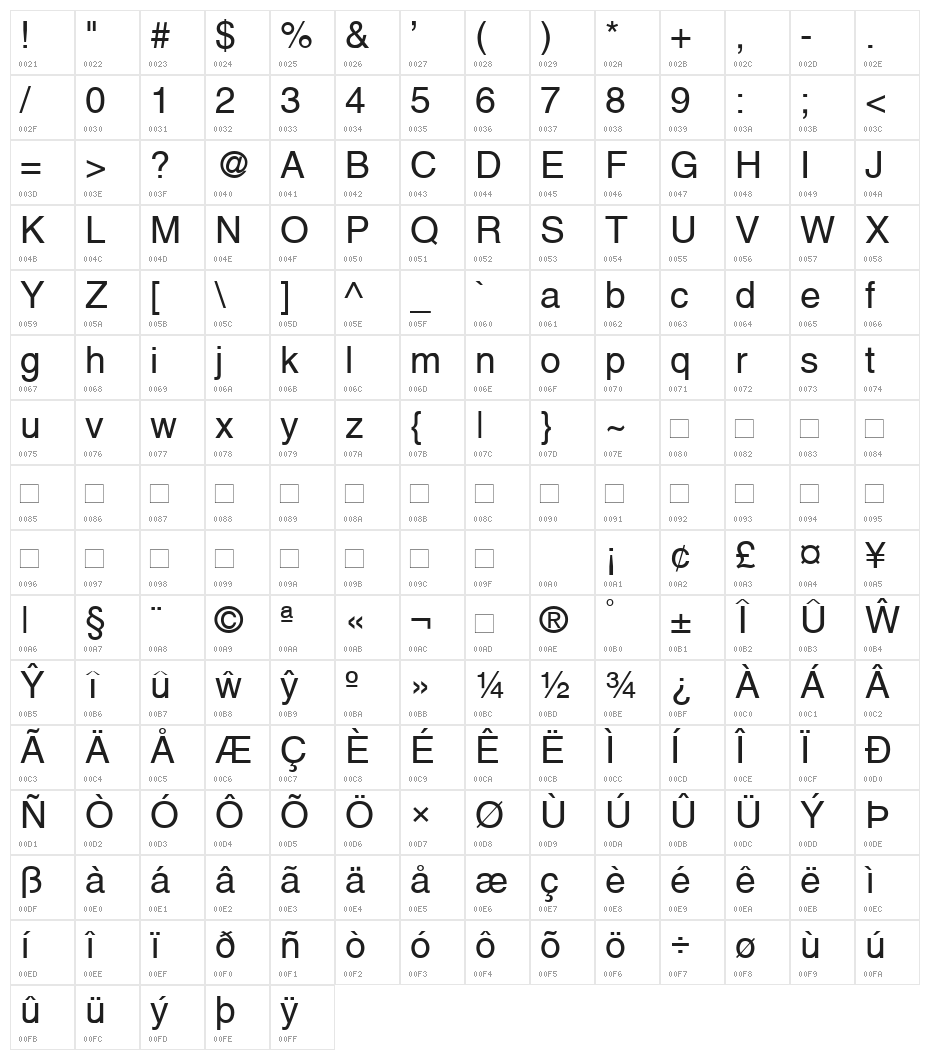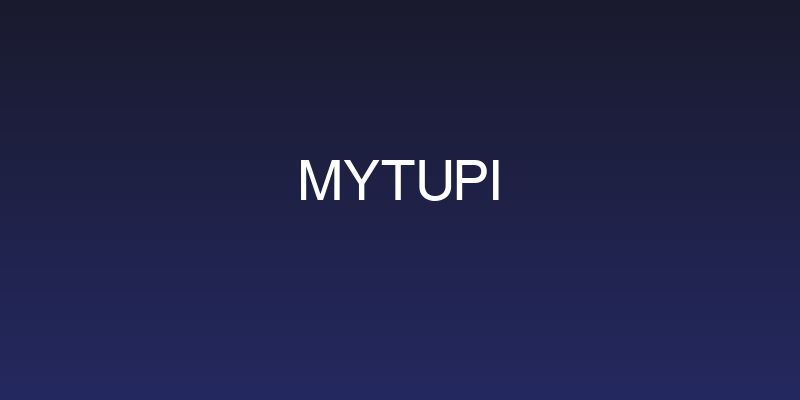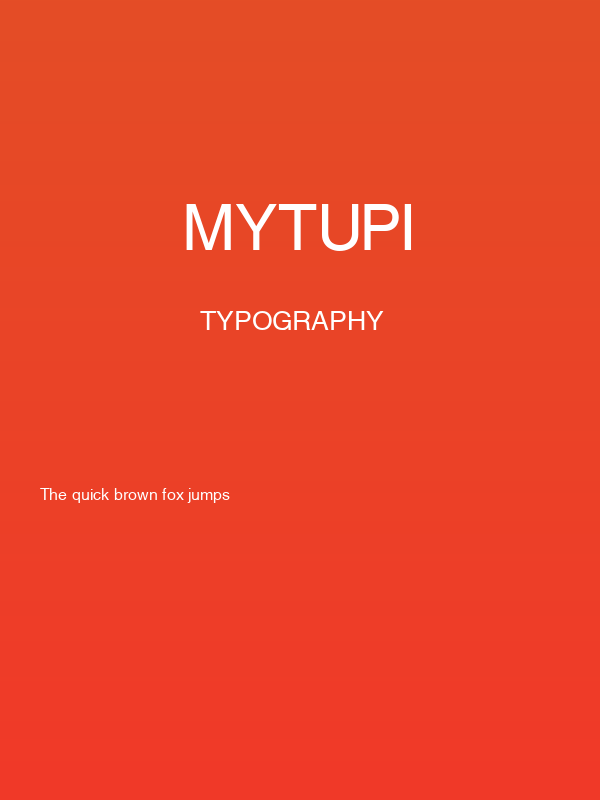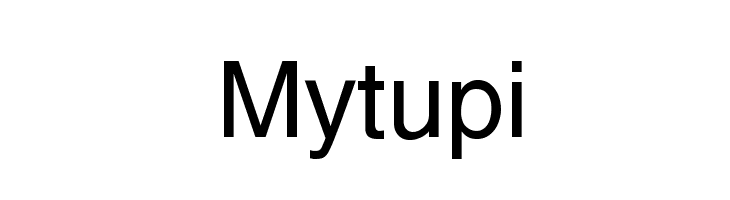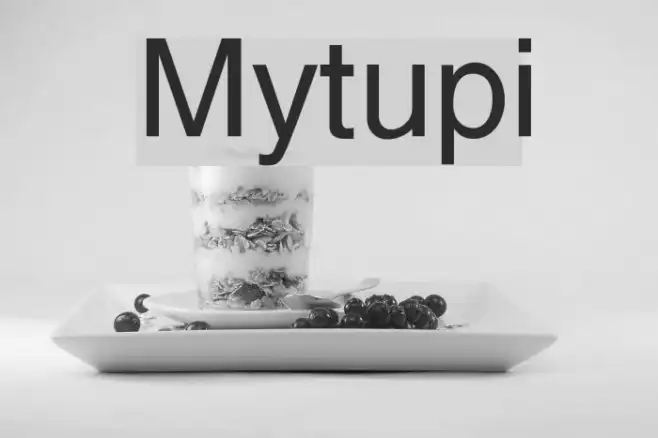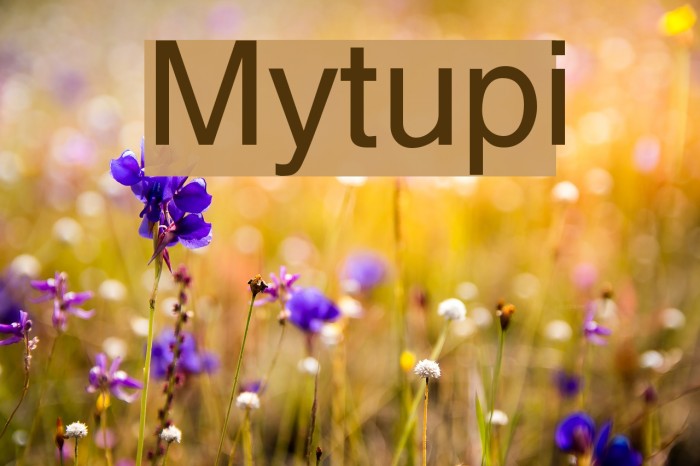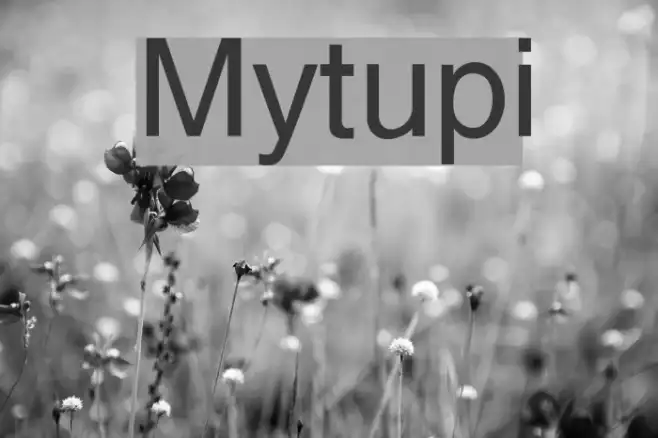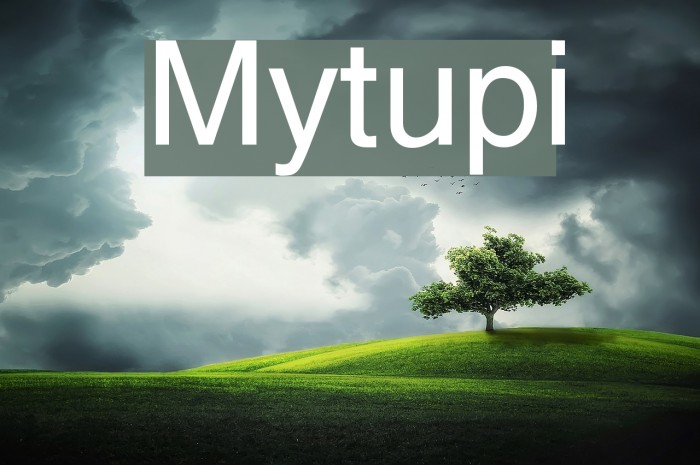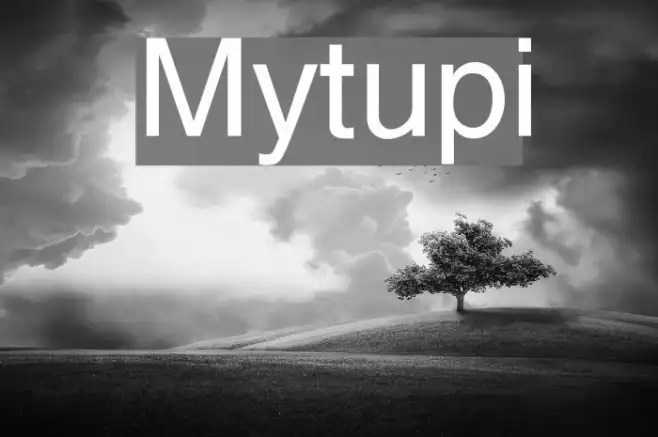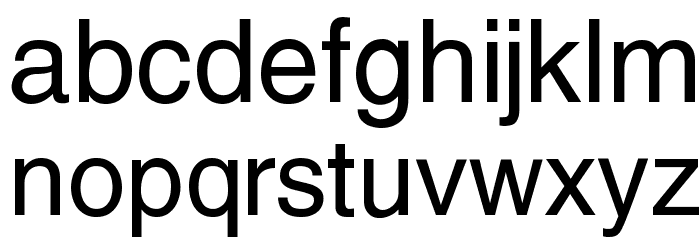
Mytupi Font
Mytupi Description
This font features a clean and modern sans-serif design with uniform stroke widths, providing a sleek and professional appearance. The characters are well-proportioned, with a focus on readability and clarity. Uppercase and lowercase letters maintain a consistent style, while numerals and special characters are designed to complement the overall aesthetic. The font's simplicity and elegance make it versatile for various applications, from digital interfaces to print media.
| Use Case | Headlines, Body text, Logos |
| Proposed Projects | Ideal for corporate branding, web design, user interfaces, and editorial layouts. |